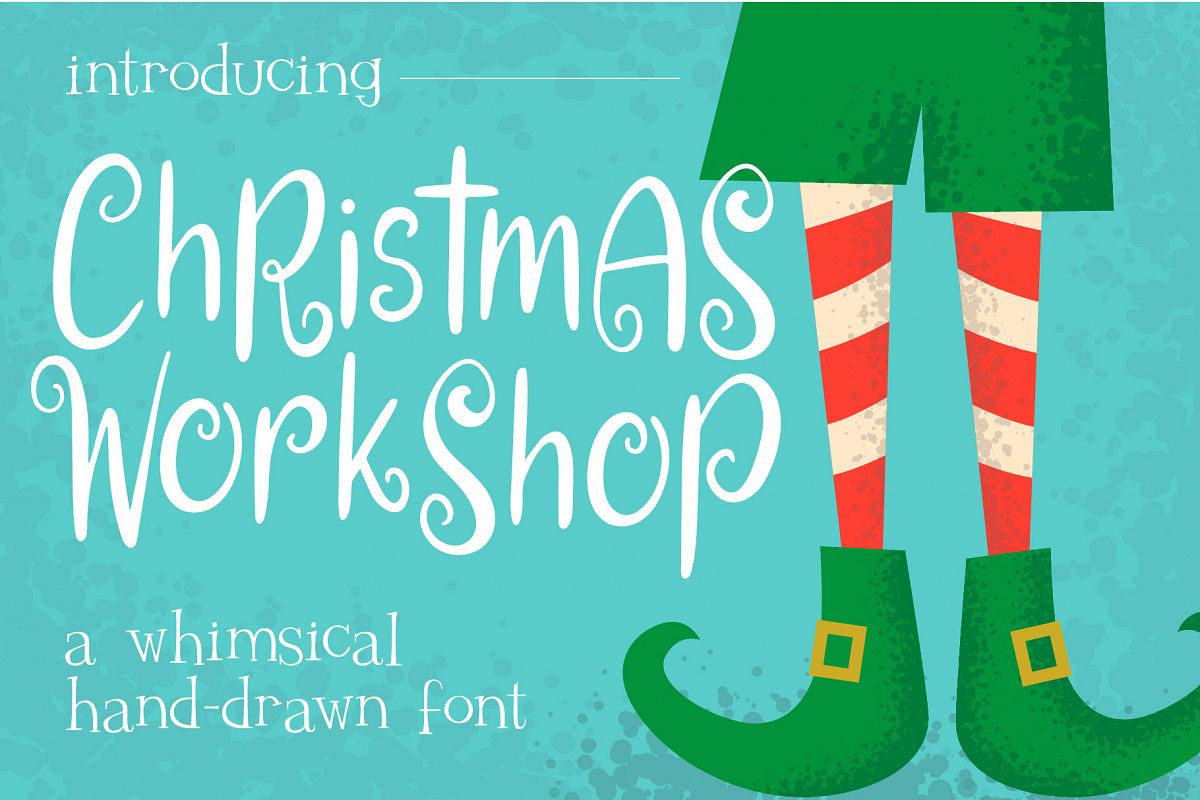
Christmas Workshop Font
Introducing, Christmas Workshop!. A fun festive font that was inspired the Santa's Elf's shoe!. This PUA font is perfect for professional designers, social media, or crafters.